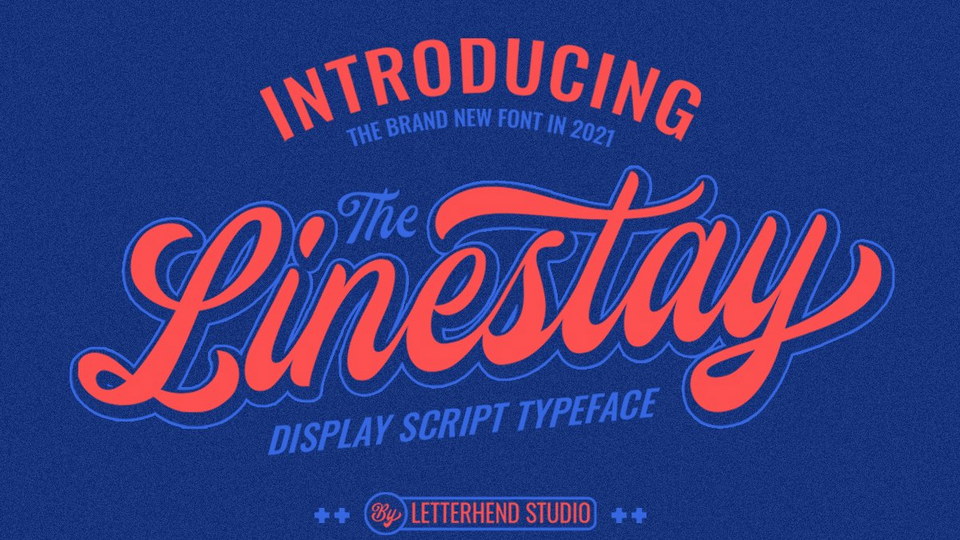
Download The Linestay font, a standout bold script typeface with a touch of vintage look and feel. The Linestay font perfectly made to be applied especially in logo, headline, signage and the other various formal forms such as labels, magazines, packaging, fashion, sport or any type of advertising purpose.